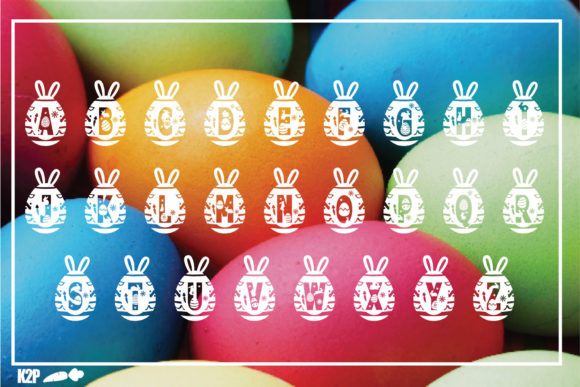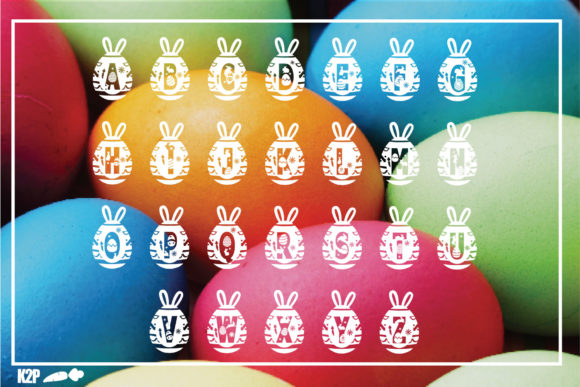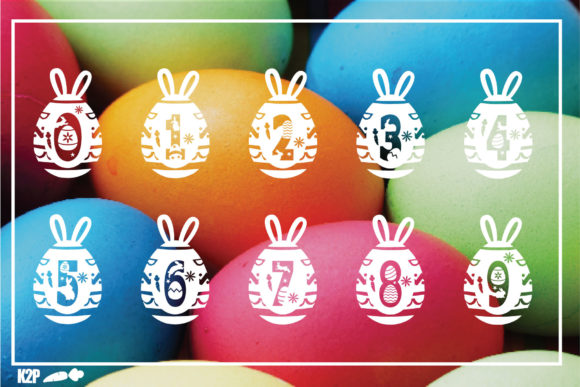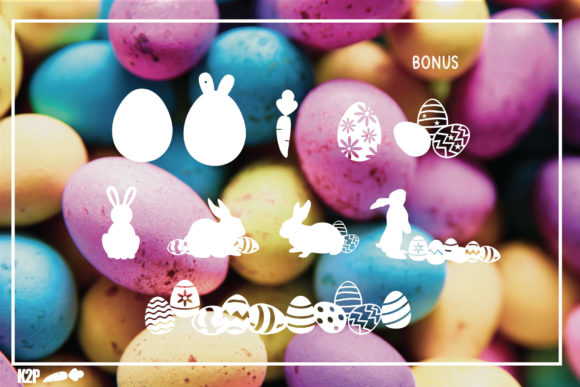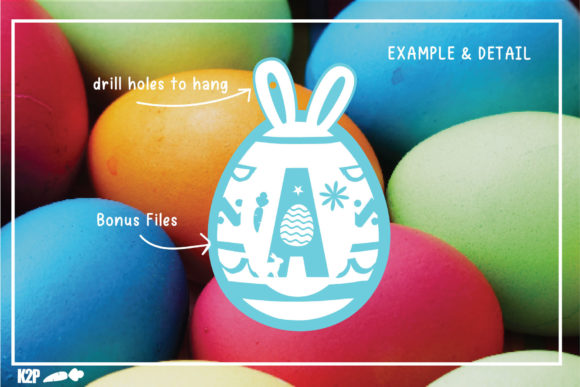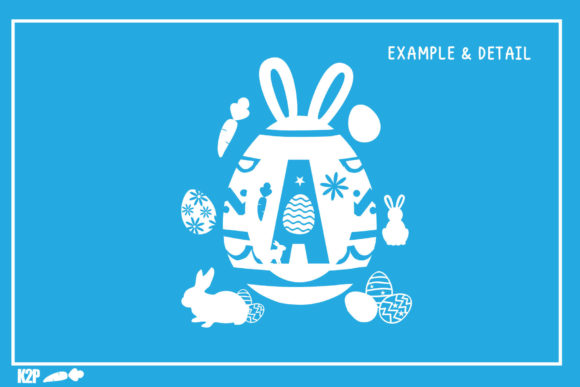
Spring into Creativity with the Easter Egg Monogram Font
As you sit down to plan this year’s Easter celebration, do you find yourself staring blankly at a blank canvas, struggling to come up with the perfect design? We’ve all been there – the pressure to create something truly special for our loved ones can be overwhelming. But fear not, dear designers, for we have just the thing to inspire your creativity: the Easter Egg Monogram Font.
This gorgeous font is the perfect addition to any Easter-themed project, infusing your designs with a sense of festive cheer and whimsy. With its delicate, hand-drawn lines and vibrant colors, the Easter Egg Monogram Font is sure to add a touch of magic to your creations. Whether you’re crafting invitations, decorating eggs, or creating a festive banner, this font is the perfect choice to make your project truly shine.
Easter Egg Monogram Font Key Features
- Unique Characteristics: This monogram font features intricate, hand-drawn designs with Easter egg-inspired elements, adding a whimsical touch to any project.
- Monogram Options: The font includes a variety of monogram options, allowing users to create custom initials with ease, including single-letter, two-letter, and three-letter combinations.
Easter Egg Monogram Font Review
Overall, I think the Easter Egg Monogram Font is a cute and playful addition to any project. ✨ The monogrammed initials and Easter egg-inspired design elements add a fun touch to text-based designs.
- The font is available in a range of languages, making it a versatile choice for global projects.
- The Easter egg design elements are well-integrated into the font, creating a cohesive and visually appealing design.
- ⚠️ The font may not be suitable for formal or professional projects due to its playful and whimsical nature.
- ⚠️ Some users may find the font’s Easter egg design elements to be distracting or overly cute.
- ⚠️ The font’s customization options can be overwhelming for users who are not familiar with font design.
In conclusion, the Easter Egg Monogram Font is a fun and creative choice for designers who want to add a playful touch to their projects. However, it may not be the best choice for more formal or professional projects.
Easter Egg Monogram Font Practical Application Guide
The Easter Egg Monogram Font is perfect for creating custom designs for Easter, spring, and baby-themed events and celebrations.
It can also be used for personal projects